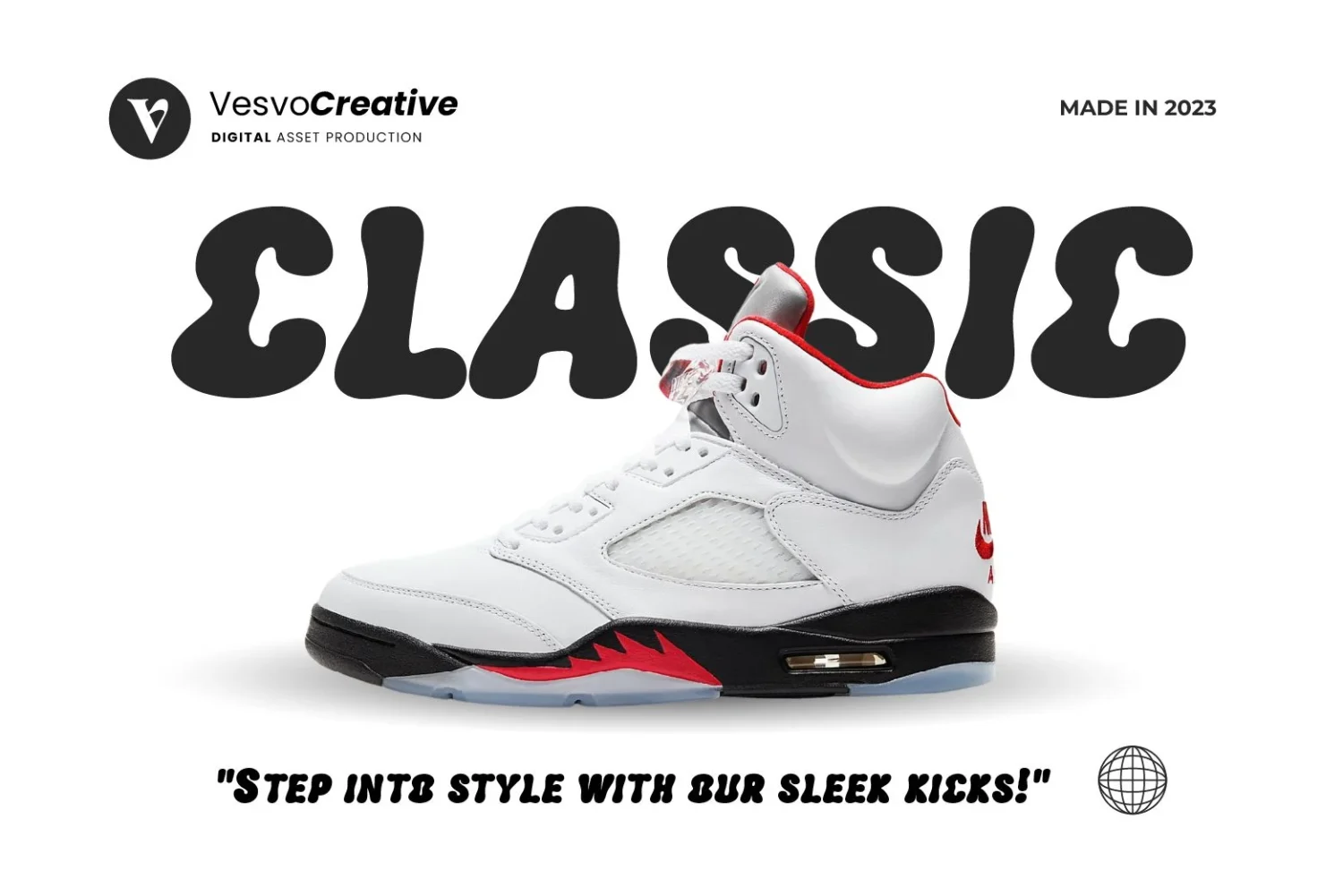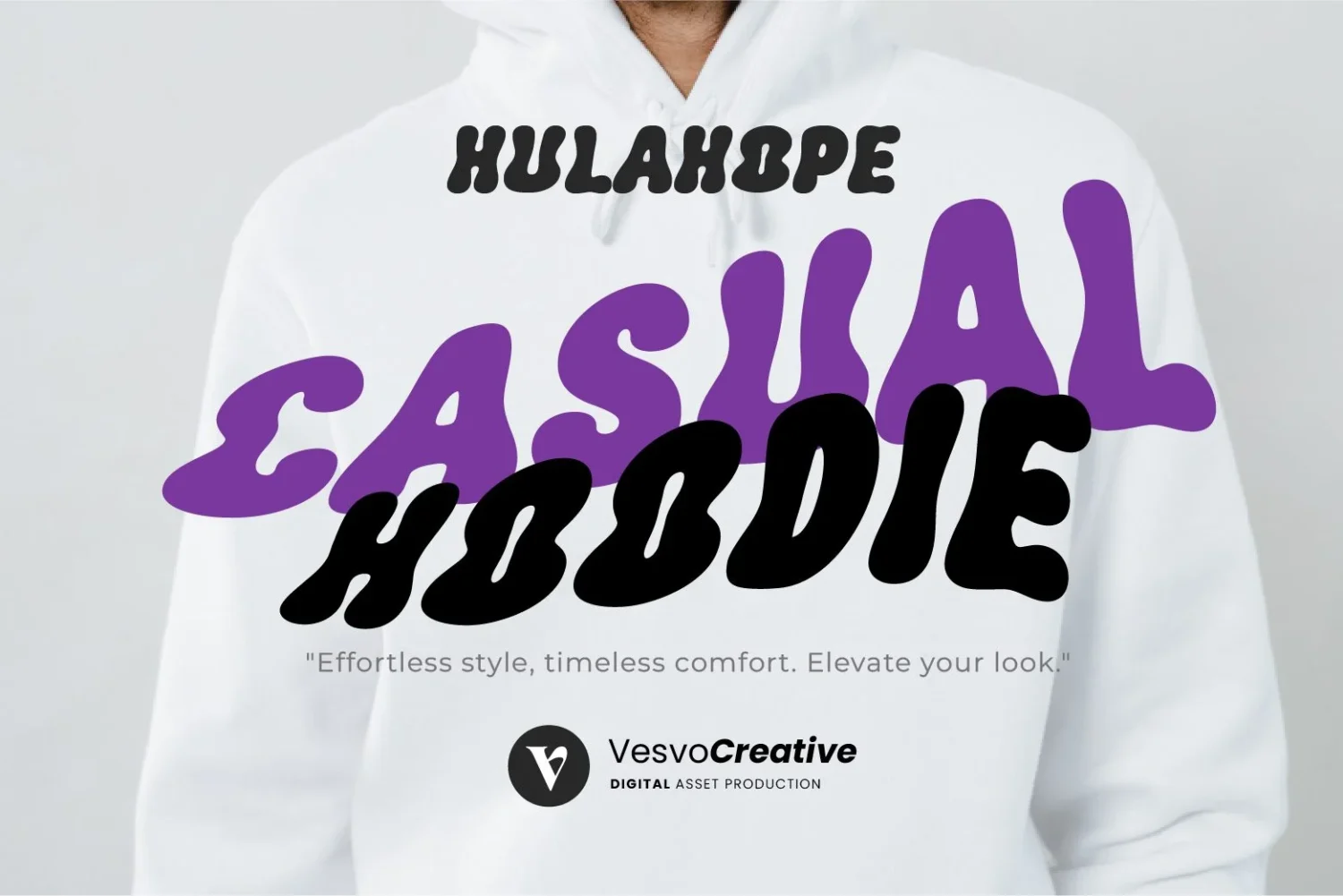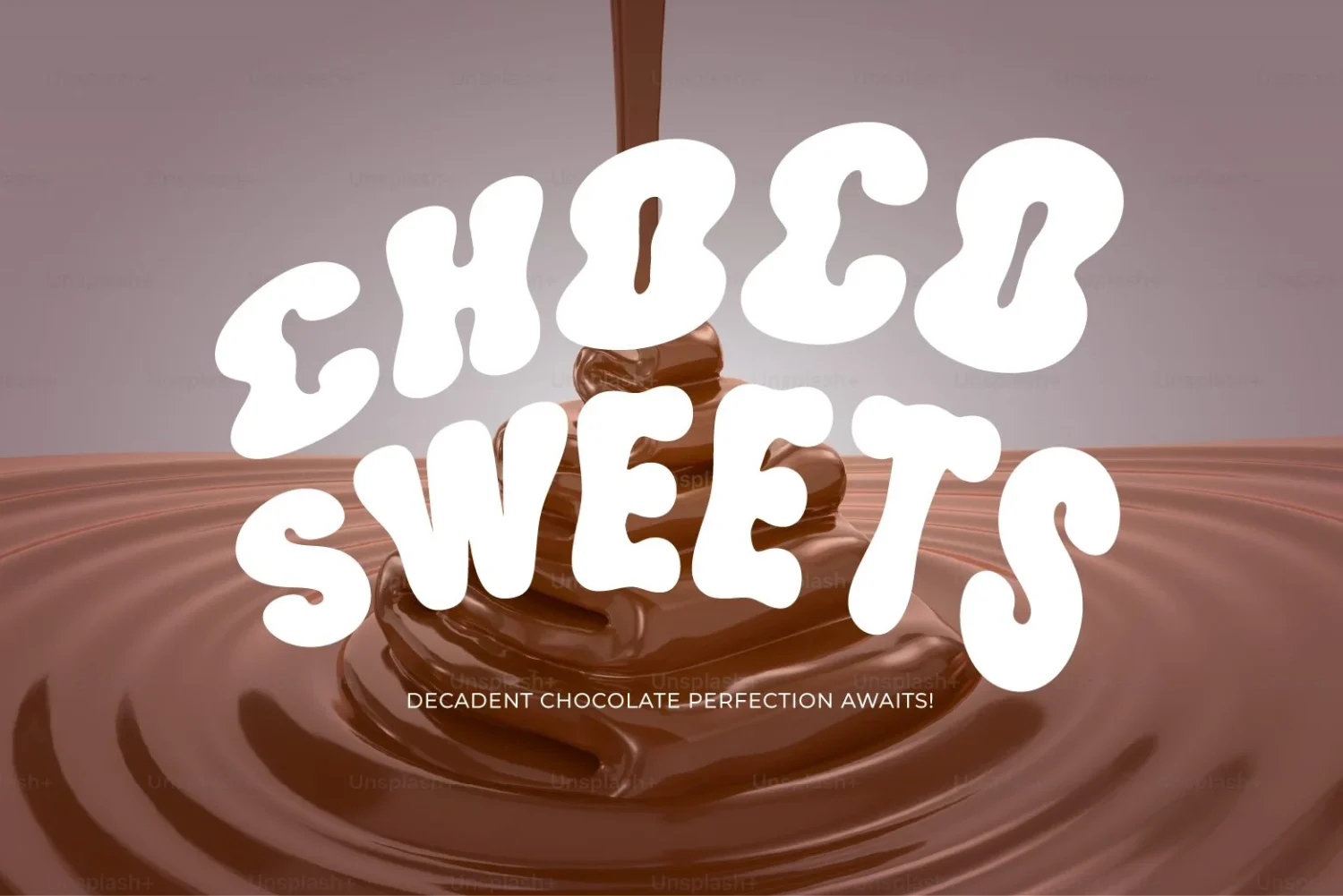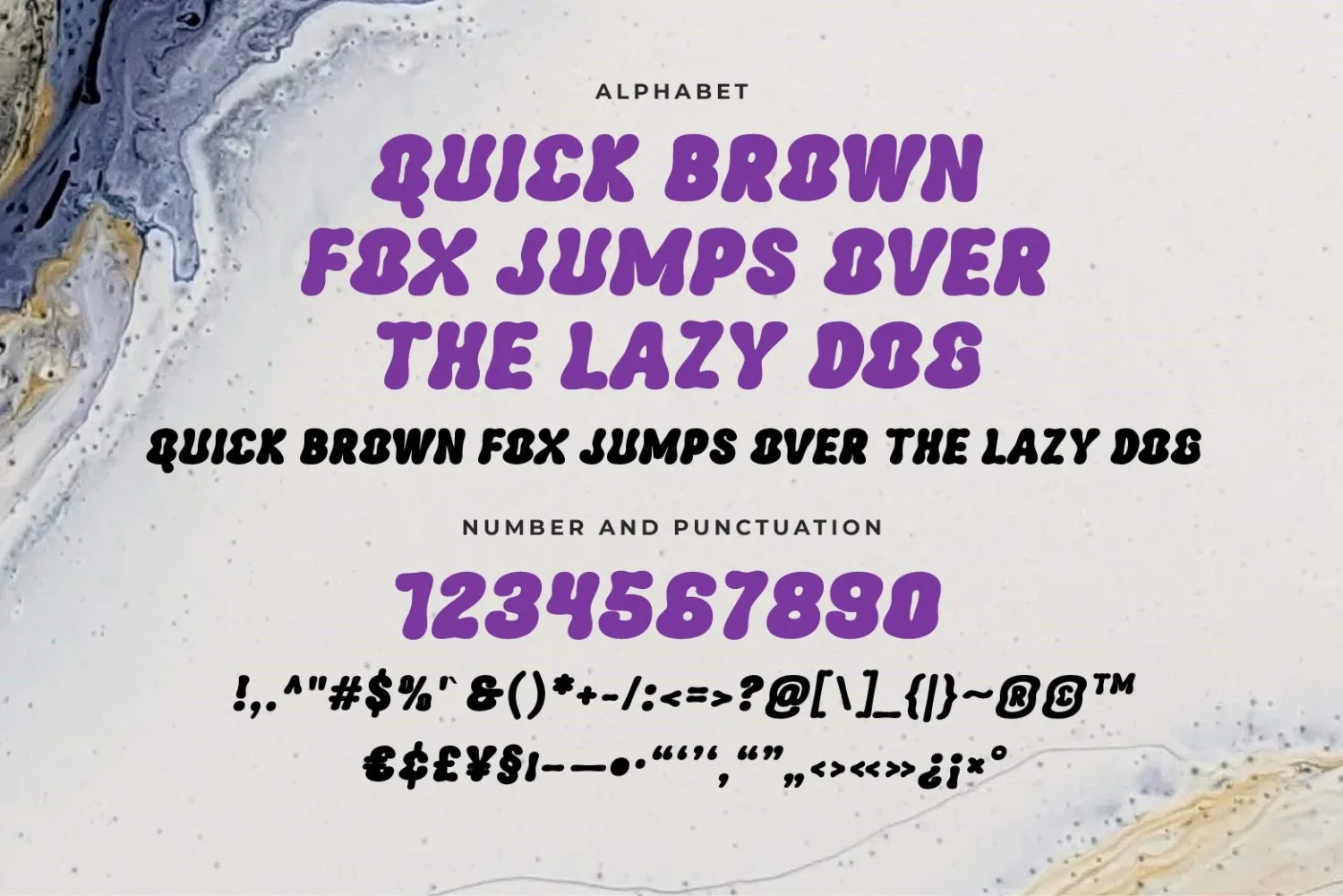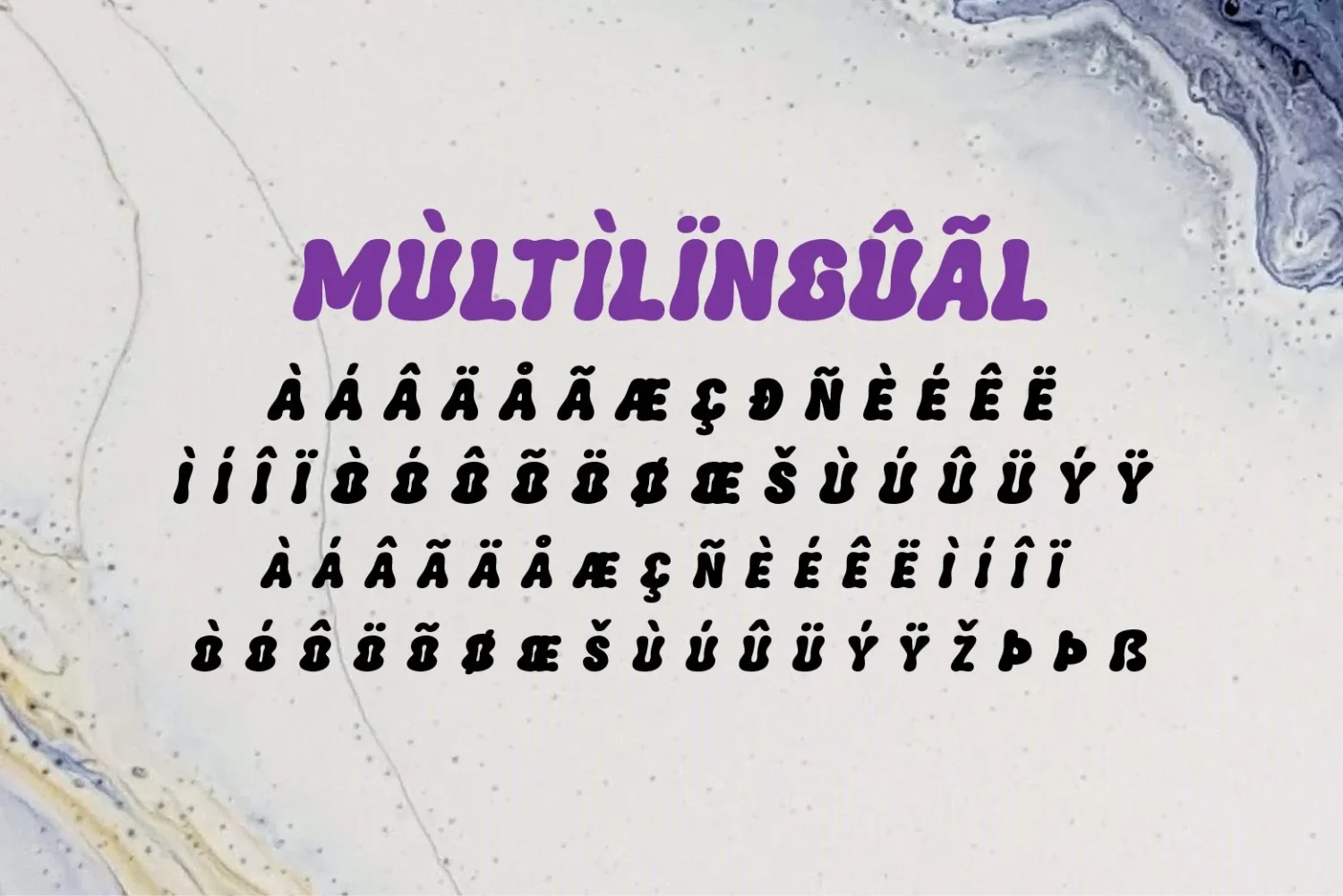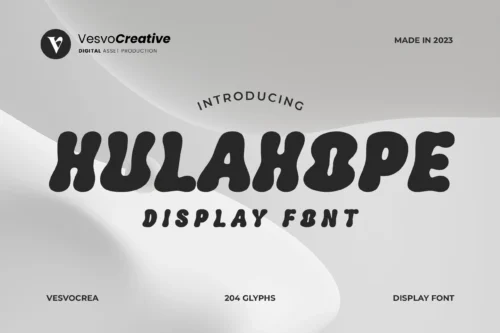
Hulahope is a retro bubble display font with bold, chunky, and groovy letterforms that instantly capture attention. Inspired by vintage aesthetics with a modern twist, this typeface is perfect for creating fun, eye-catching, and memorable designs full of personality.
Whether you’re working on logos, branding, packaging, posters, social media graphics, apparel, or other creative designs, Hulahope adds a playful retro vibe with bold visual impact.
Perfect For
- Logos, branding, packaging, posters, apparel, social media graphics, merchandise, and more.
Features
- Uppercase & Lowercase
- Numbers & Punctuation
- Multilingual Support
This typeface has been carefully designed with attention to every detail, making it both versatile and enjoyable to use across a wide variety of creative projects.